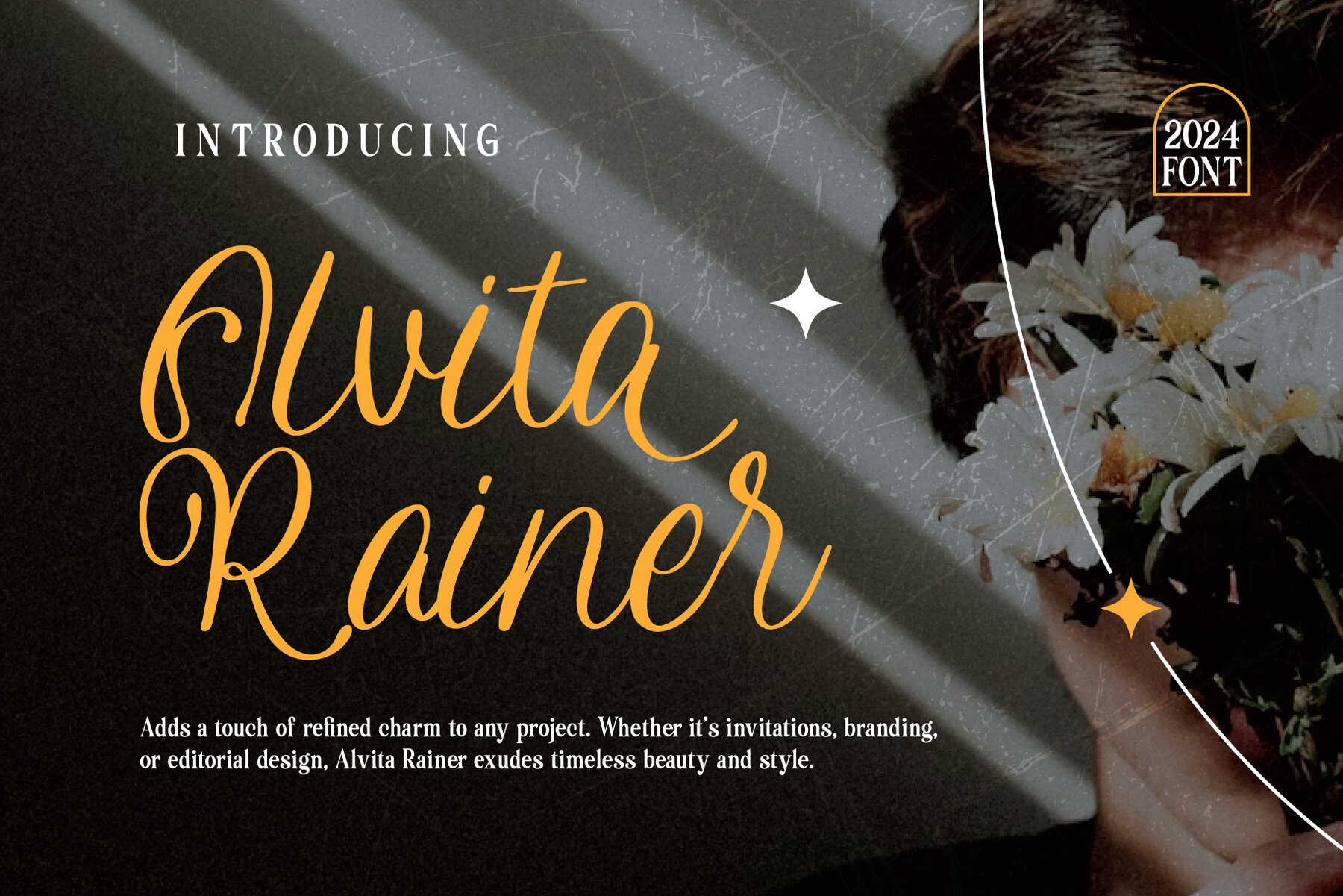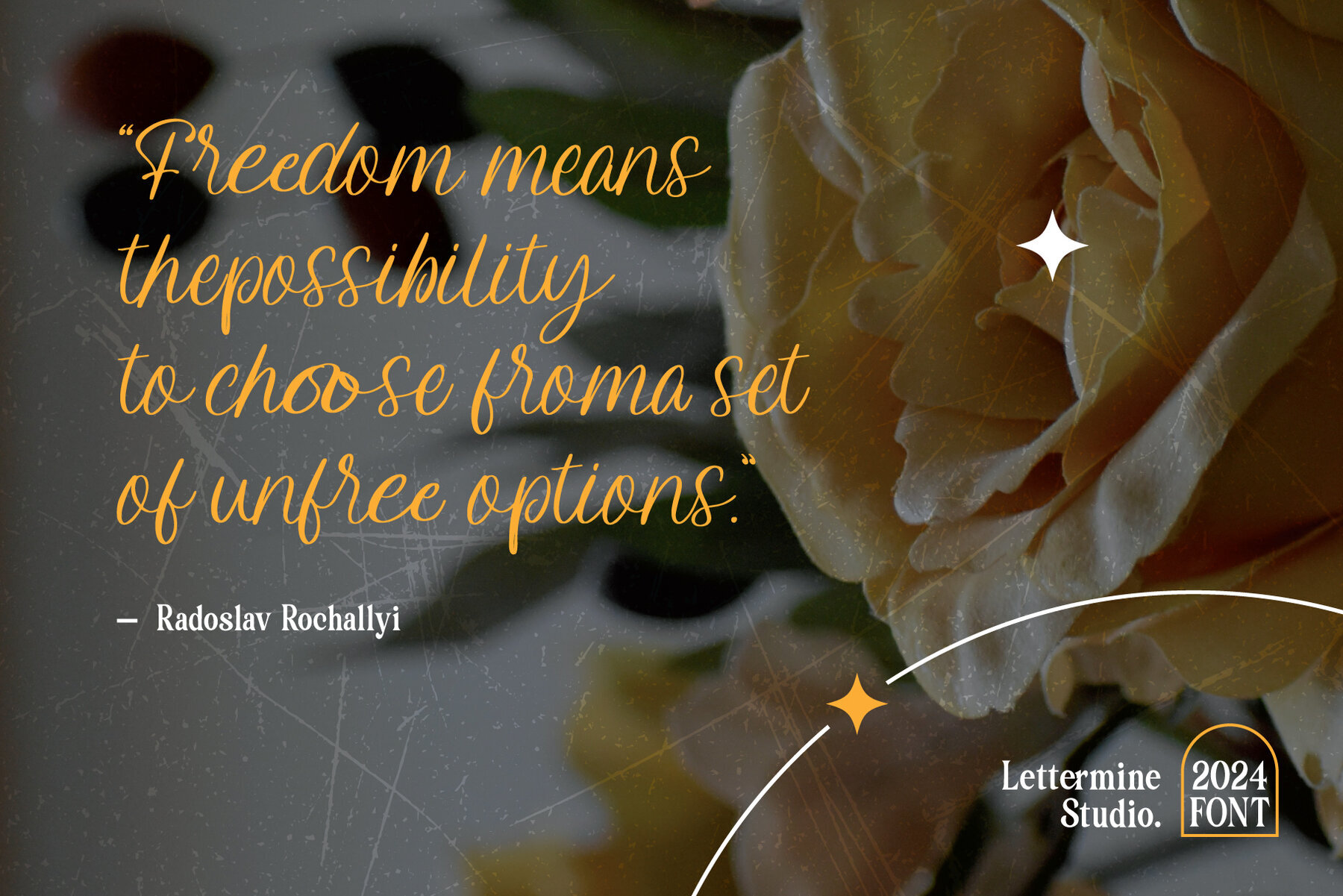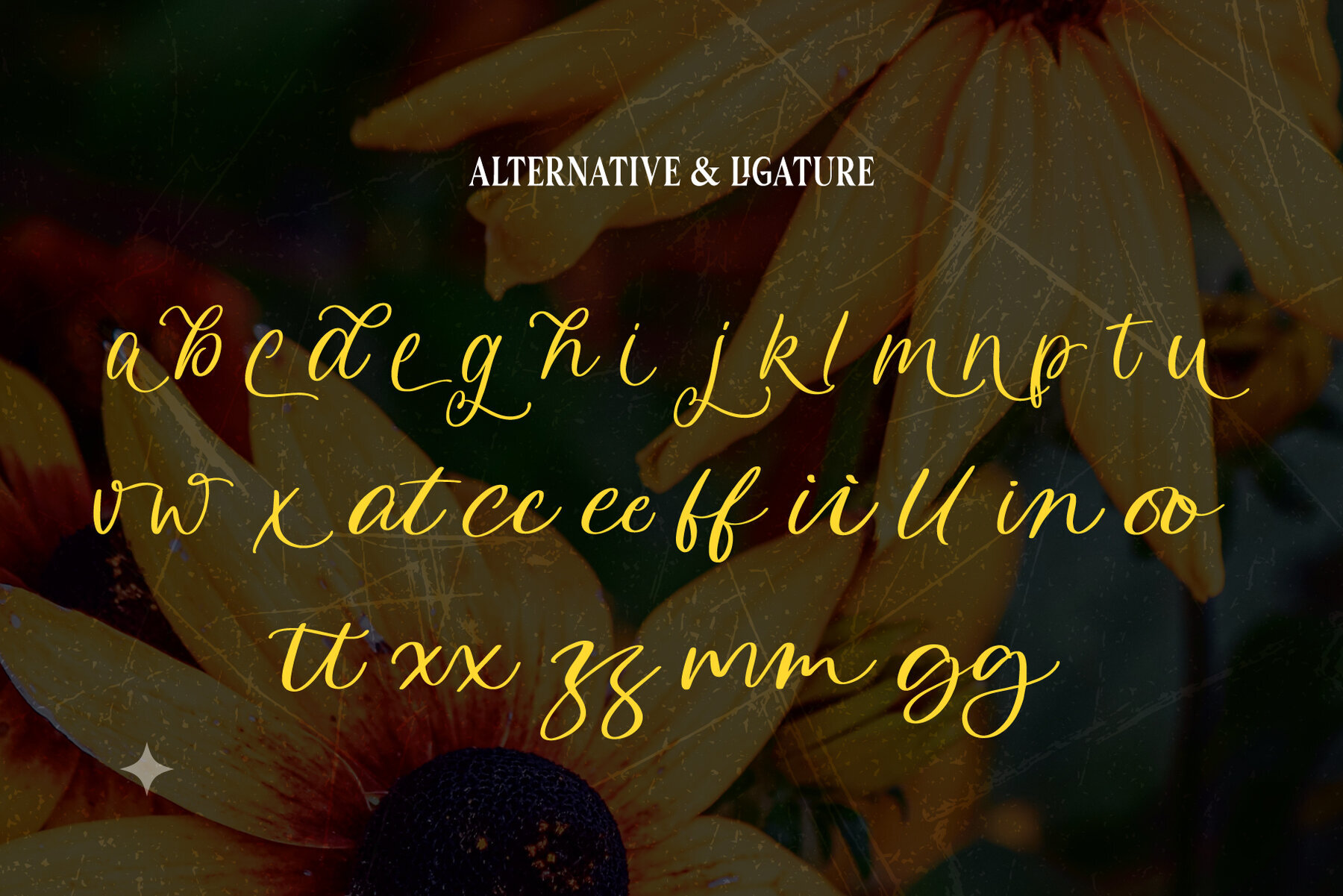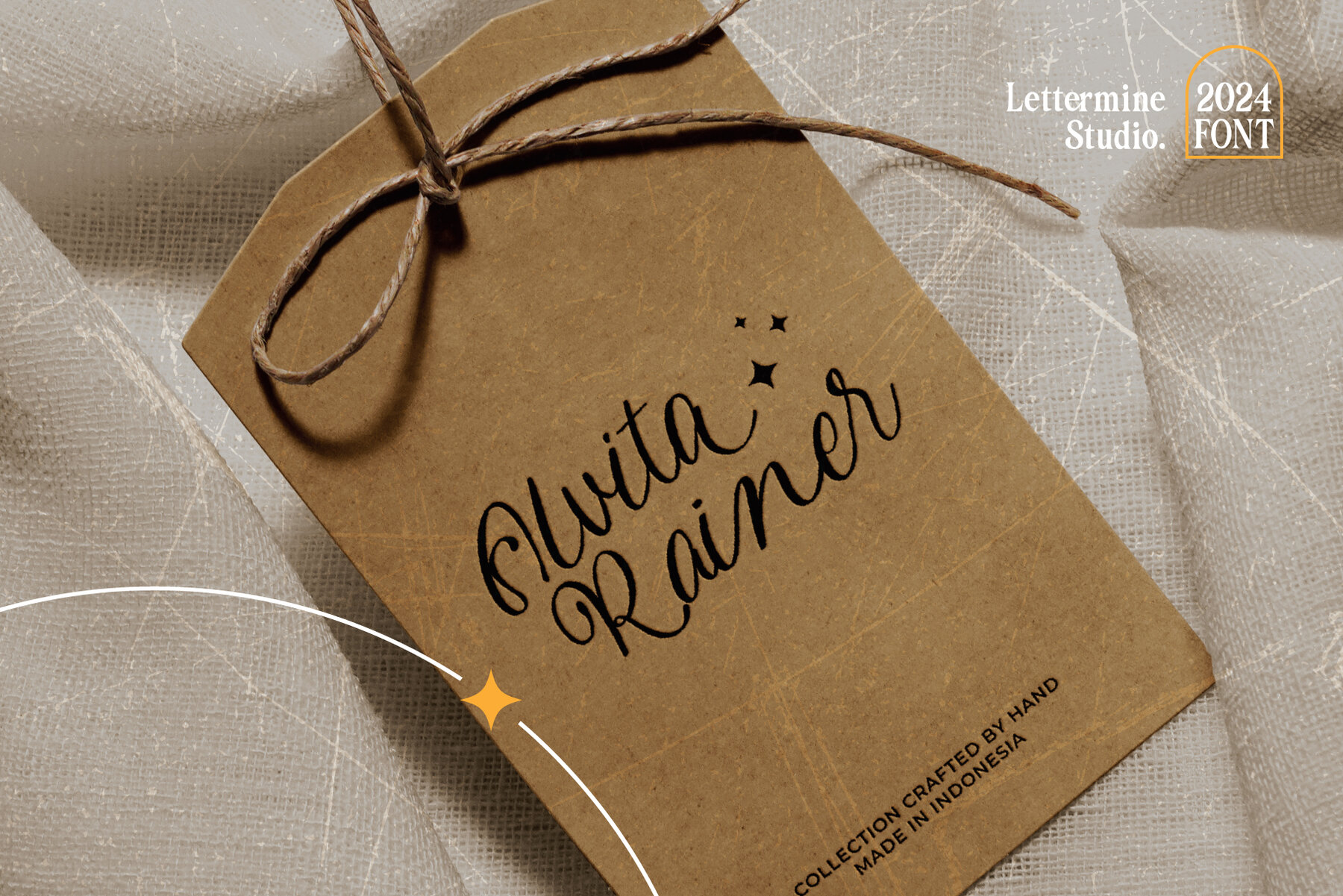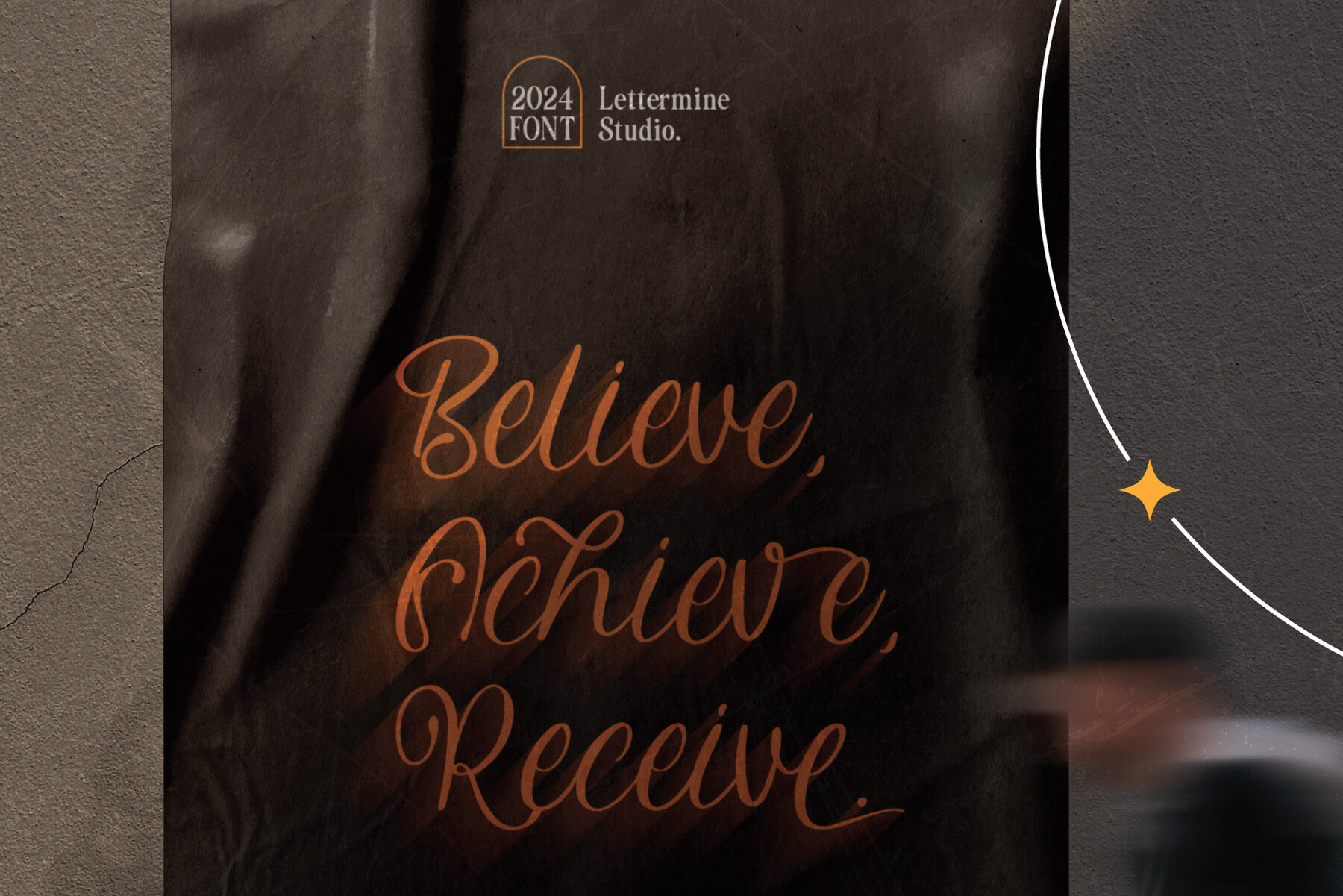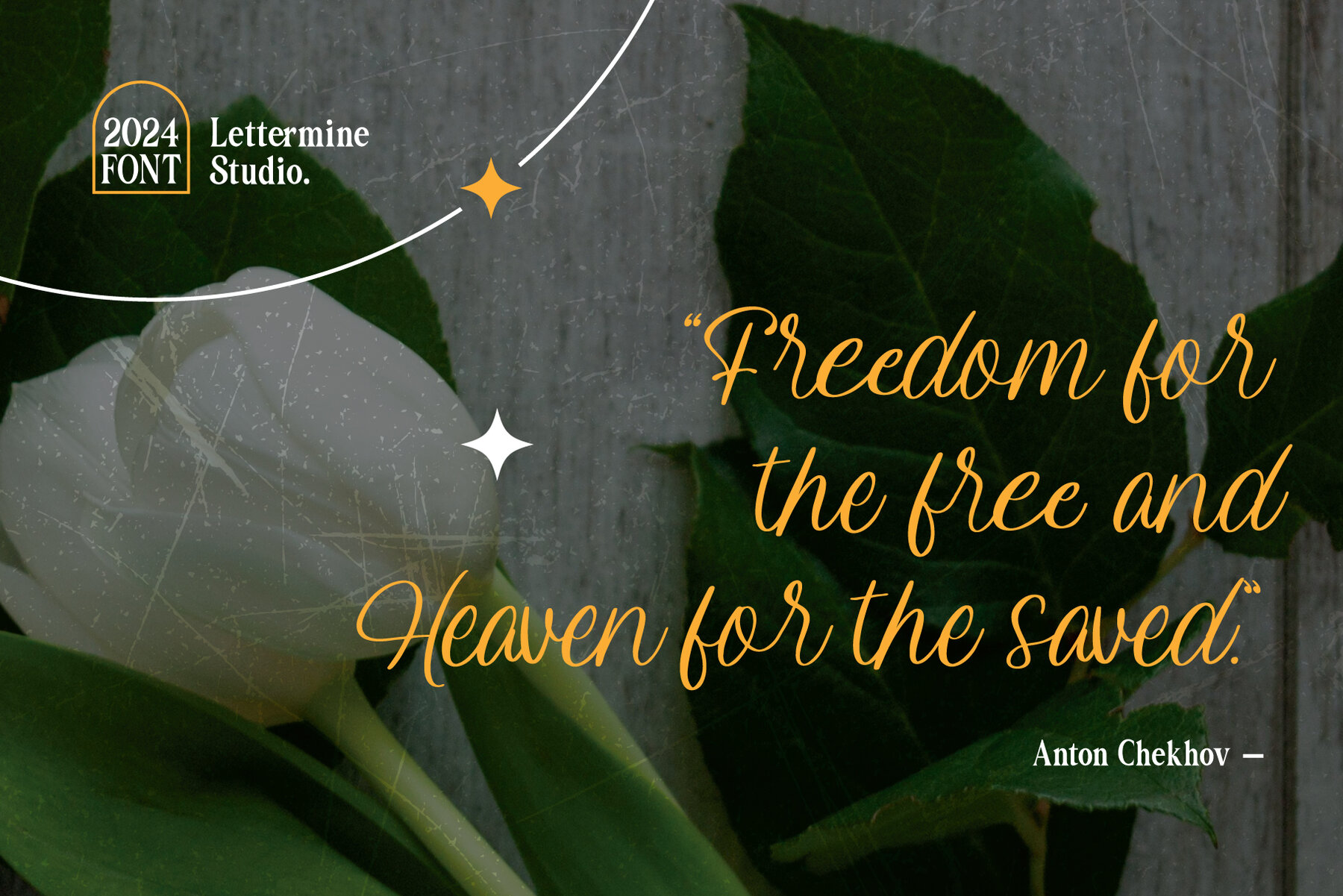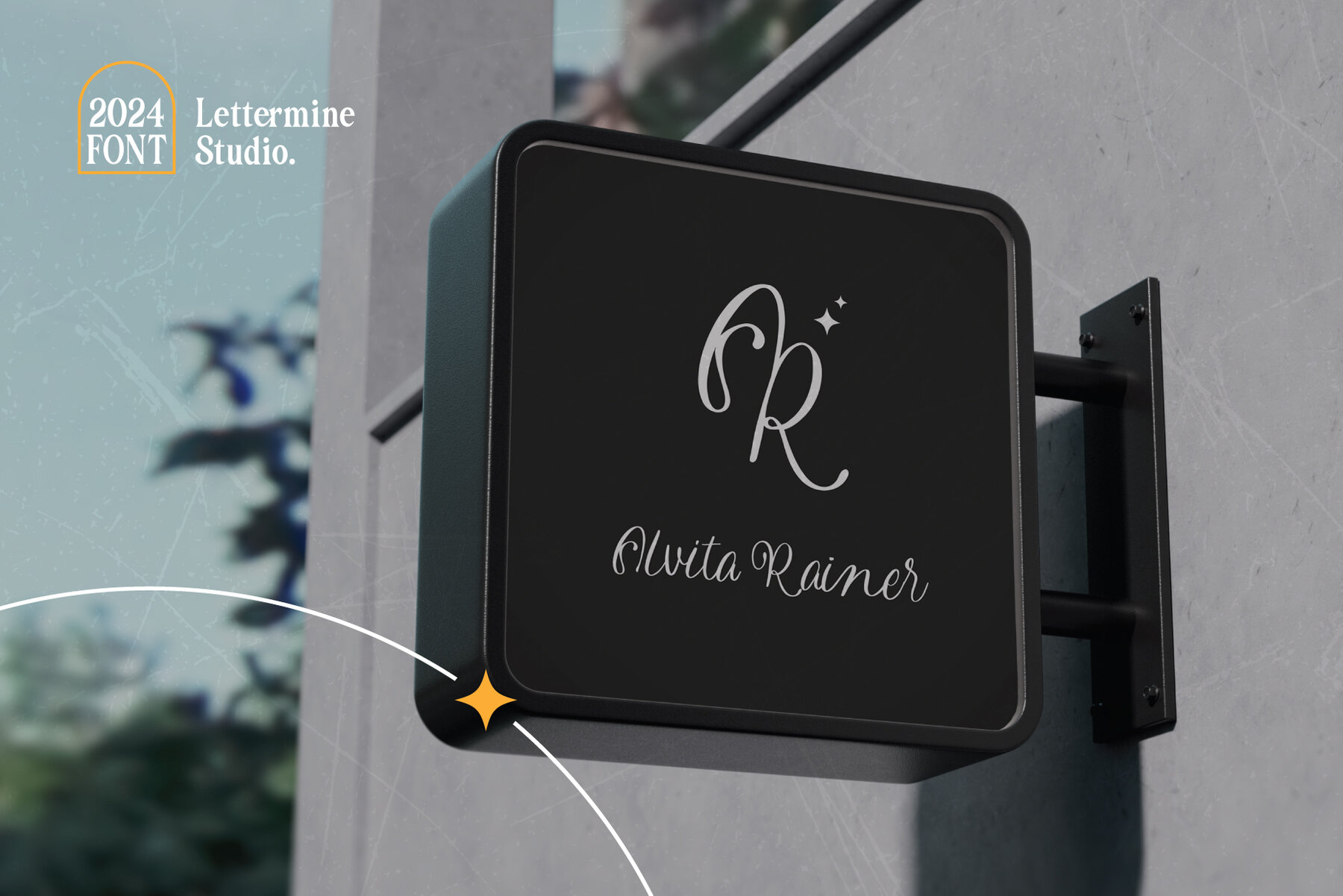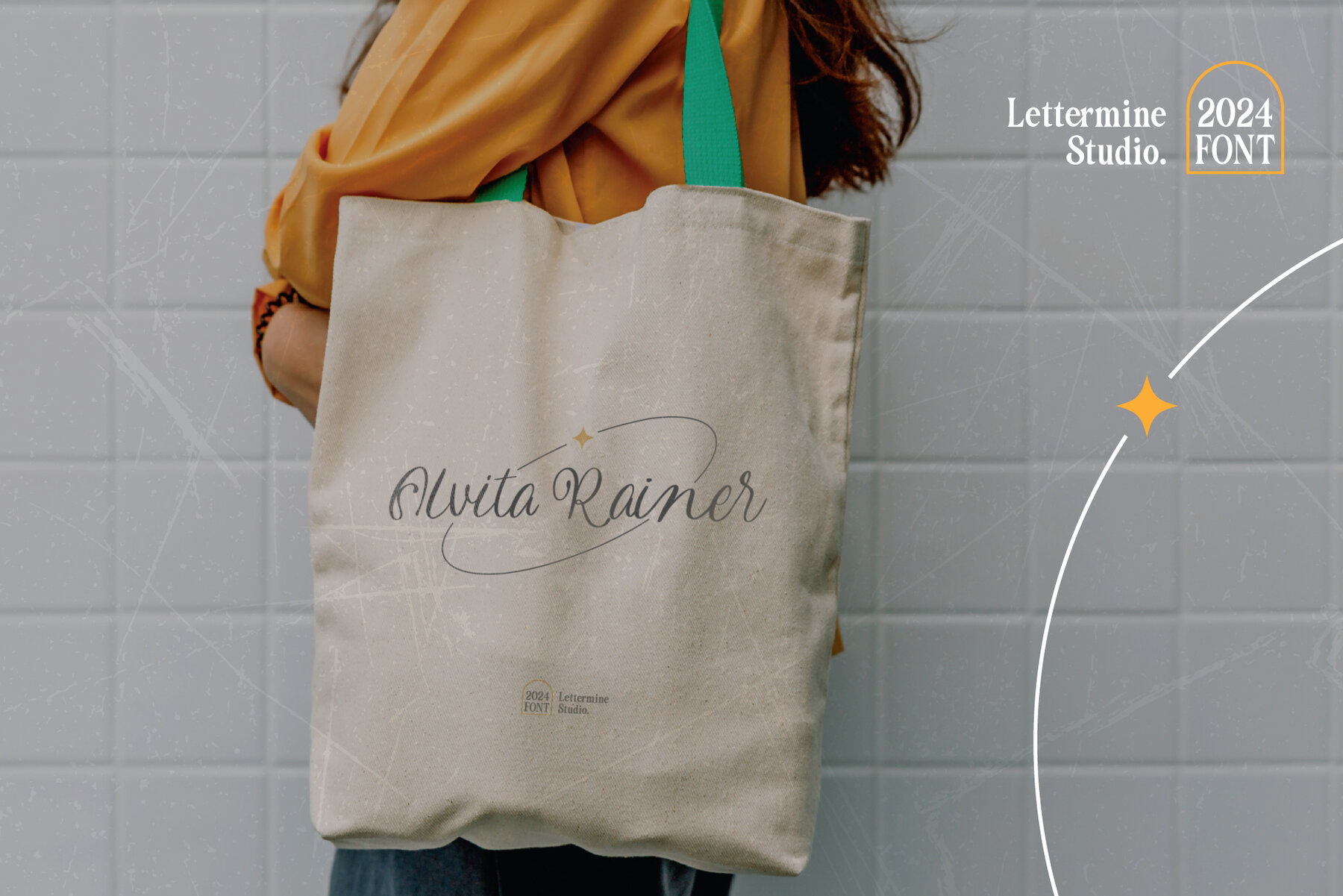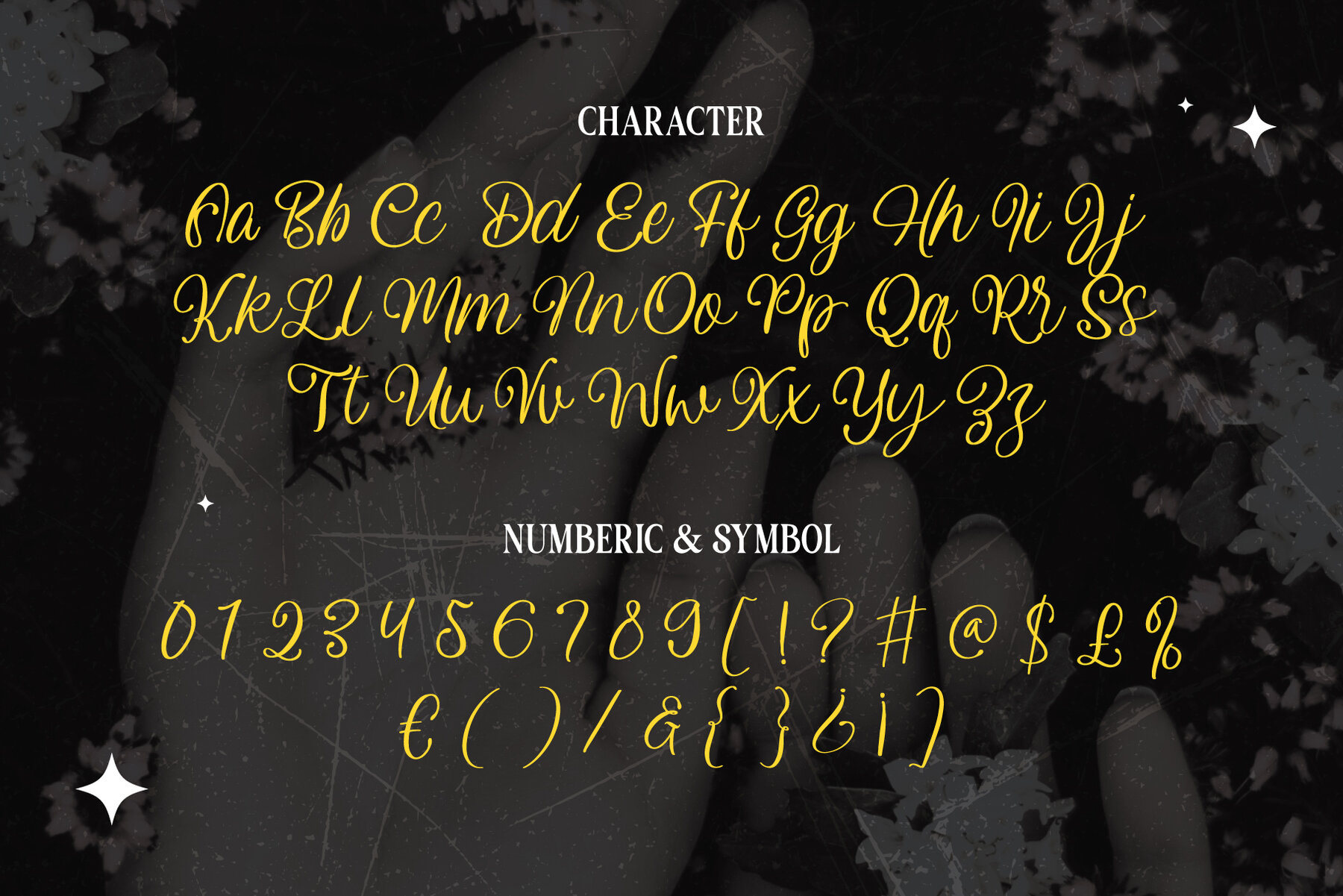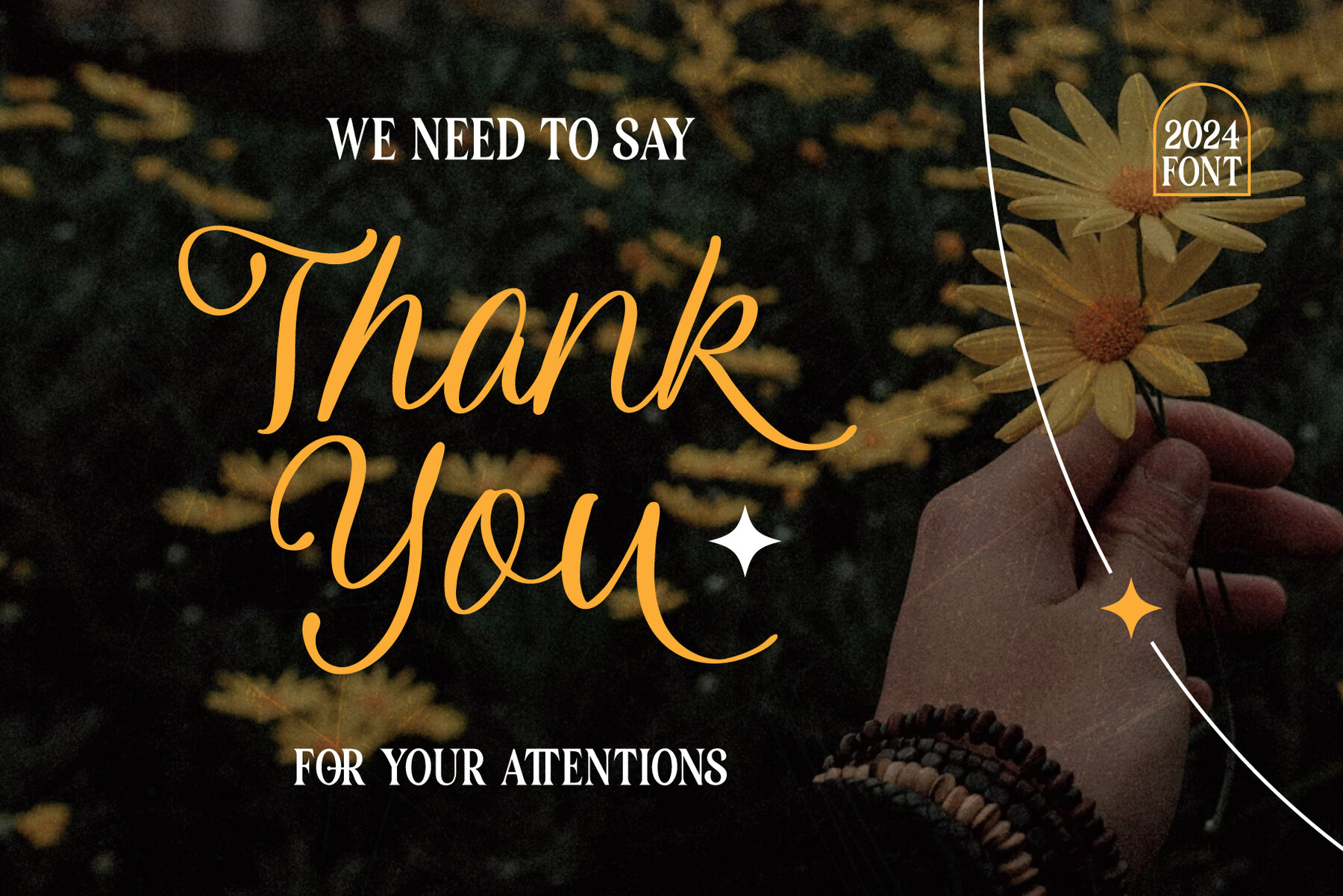
Alvita Rainer Font
Alvita Rainer combines elegance and functionality, crafted with precision to offer sophistication and versatility for various creative projects. Embrace the beauty of Alvita Rainer and let your creativity flourish with this exquisite font. Copyright © 2024 by Lettermine. All rights reserved. No part of this font may be reproduced or resold.Alvita Rainer: Sophisticated Cursive Script